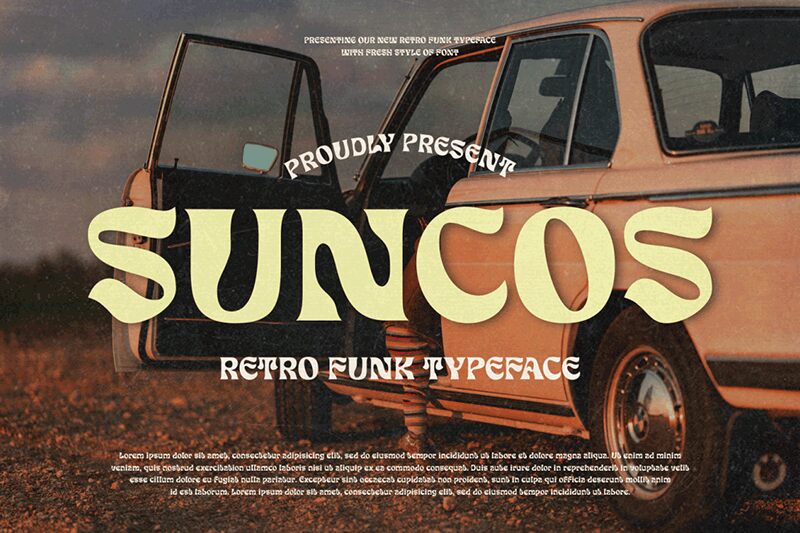
Suncos font by HansCo Studio is a display font with the groovy vibe going on. The letters achieve an optimal flow thanks to their retro-inspired, organic shapes with artistic flair and exceptional detailing. Its bold presence comes from the robust weight and slightly wide spacing between its characters.
A strong visual impact is anticipated when you use this free display typeface across your banners, advertising posters, social media covers, icons, desktop/mobile applications, and more. Include it within a variety of printed designs as well; magazines cover titles, newspaper headings & subheadings included but not limited to!